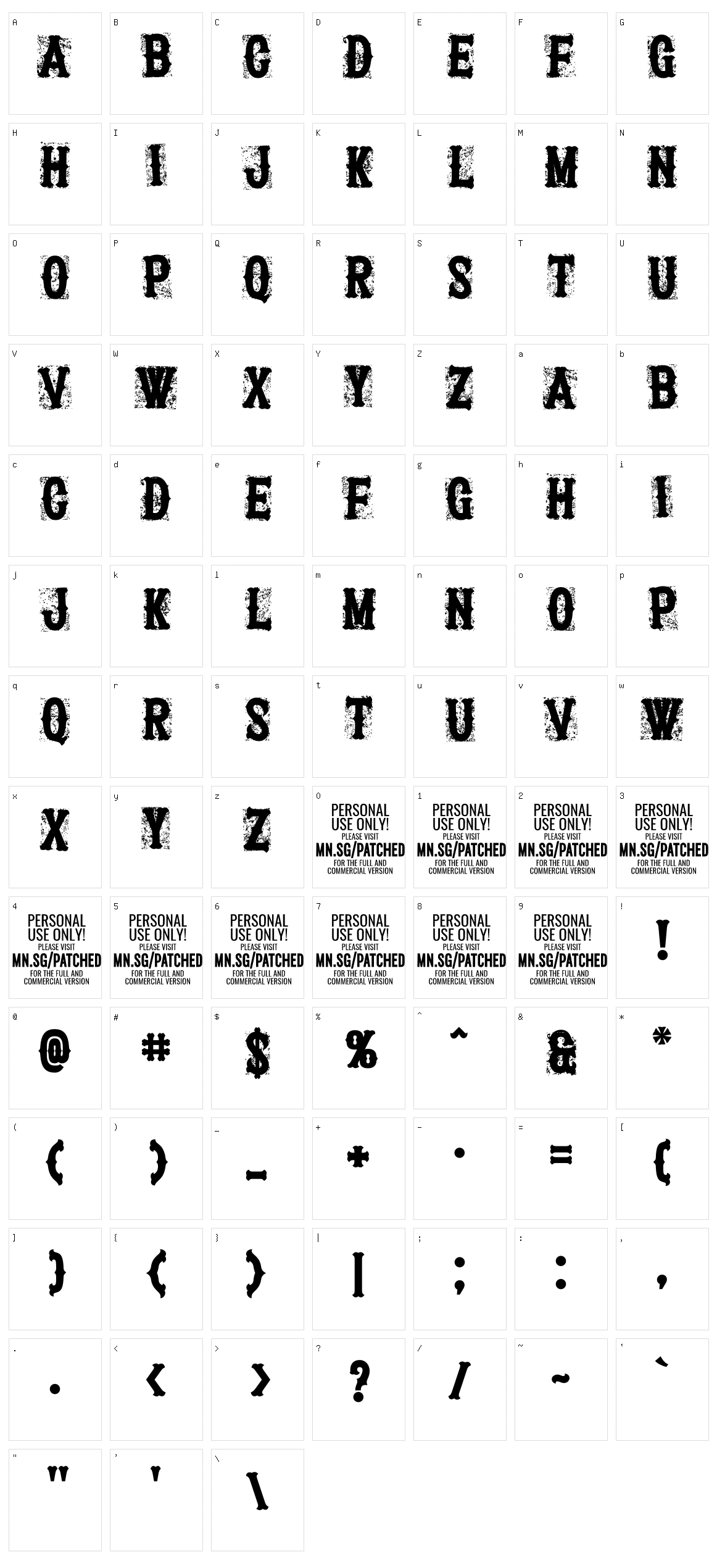
Patched is a multi-faceted, victorian-era serif typeface for when you need something more than plain text. Get that extra attention while adding a genuine, original appearance to your message.
Patched was designed from scratch to give a sense quality and depth. Its designer Mans Greback has created a typeface with a complex structure, yet one that will be easy to master. This work will suit every style, taste and skill level. It is a decorative and completely hand-drawn design in vintage lettering, with the perks and flexibility of present-day technology, which is exactly what you'd expect from a modern typeface.
Whether you are making a decorative floral headline, drawing a cowboy logo, or creating a unique design based on this ornamental font, the hopes are that Patched can give you a set of tools and inspiration to bring out the best of your artistry. Standing on the shoulders of giants, it was inspired by a wide range of works, and will hopefully be able to continue to teach and inspire future artists. Or at least help you become a better designer when you're designing an elegant and classic headline.
Set the coloring of Patched to light gold and cream tones to apply a luxurious look, or in dark tones for a more rugged impression. Bold, bright colors will make it appear
In the mid-1800s, decorative design flourished in the Western major cities. Victorian style thrived and encouraged techniques such as enamelling, embroidery and calligraphy. From the 1880s onwards, there were a series of reactions to higher Victorian tastes, with Art Deco reaching the heights of the 20th century. However, the Victorian art persisted popularity, as it changed to more sophisticated designs which made it more attractive to specific professions and groups.
The evolution of the Victorian style in the mid-20th century was a key factor in the succession of the movement. Classic shops and salons, sport designs and traditional festivals, and later Rock'n'Roll and Harley Davidson-themed graphics âinspired the continued development of the art.
Aspiring to carry on this tradition, this typeface family consists twelve different high-quality variations. The main ones are Patched and Patched In â an outlined variation â and each one provided in five weights: Thin, Light, Medium, Bold and Black. Additionally, the two rough fonts Hangaround and Prospects, that tries to grasp the rough, earthy atmosphere of a shady motorcycle club.